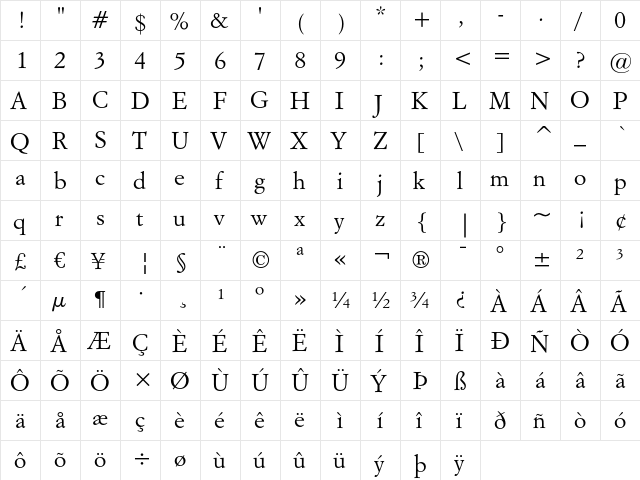
Italian Garamond Regular
Design Context for Italian Garamond Typeface
Italian Garamond offers clean, dependable letterforms without strong stylistic allegiance, making it a practical choice for designers who need flexibility.
Pro Tip: Use Italian Garamond in both headline and body roles to test its range before committing to a single application.